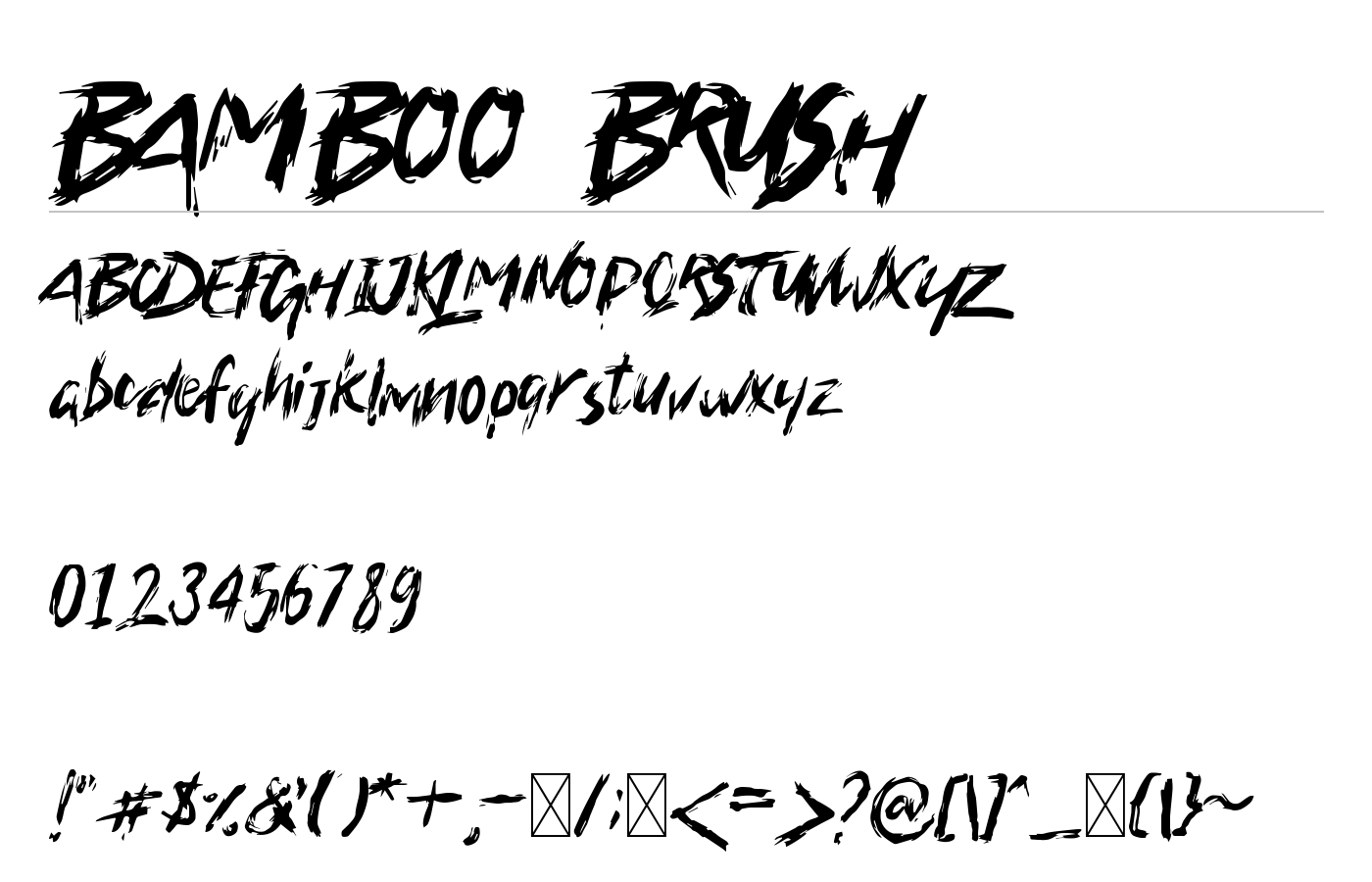
Bamboo Brush is an expressive, handwritten brush script font that features bold, dynamic strokes with a rough, textured edge, giving it a raw and energetic feel. Its irregular, slightly condensed letterforms and high contrast between thick and thin lines create a sense of motion and spontaneity, making it ideal for designs that require a lively, artistic touch. This font works especially well for creative branding, posters, and headlines where a youthful, edgy, and handcrafted vibe is desired.
BAMBOO BRUSH Font
About BAMBOO BRUSH Font